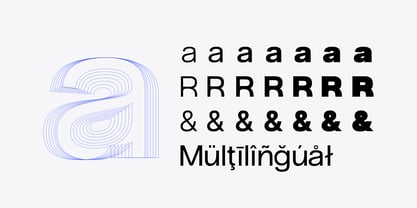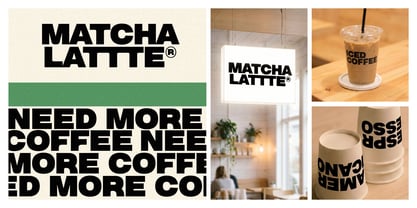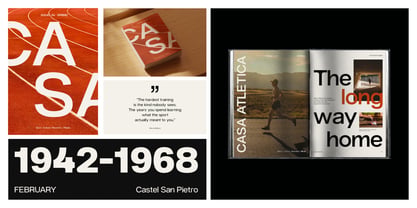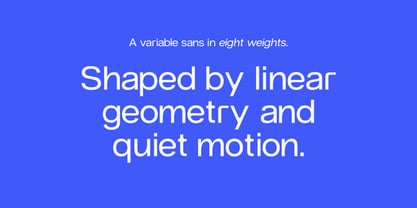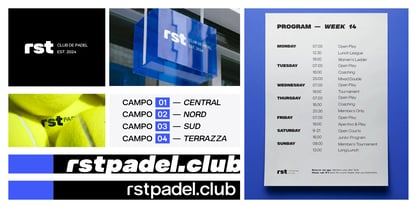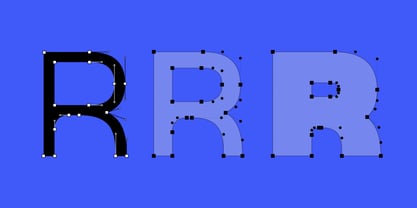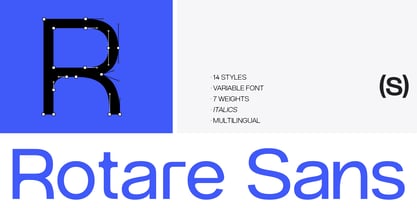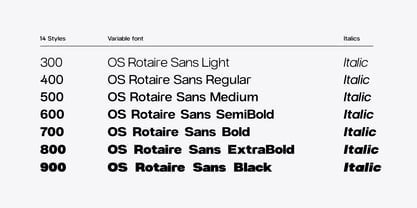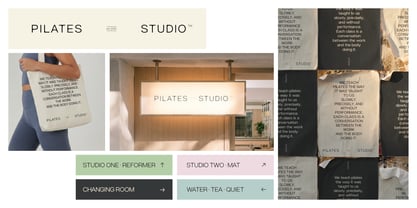
OS Rotare Sans
OS Rotare Sans is a contemporary sans-serif designed for clarity, rhythm, and movement.
Originally developed during a sports branding project focused on the culture of running, the typeface takes inspiration from the idea of paths intersecting within a community routes that meet, overlap, and continue forward together.
The result is a warm yet precise sans-serif that balances neutrality with subtle character. Its proportions are designed to work seamlessly across branding, editorial, and digital environments, offering both personality and reliability.
OS Rotare Sans features a clean and refined structure with open shapes and carefully tuned spacing, making it suitable for everything from identity systems to interface design.
The family includes Light, Regular, Medium, Bold, ExtraBold, and Black, along with a variable font that allows smooth control across the weight axis.
Built for versatility, OS Rotare Sans performs equally well in headlines, brand systems, and continuous text.
Released under the Off Season type library, the typeface marks the beginning of a series of fonts exploring movement, precision, and contemporary design culture.